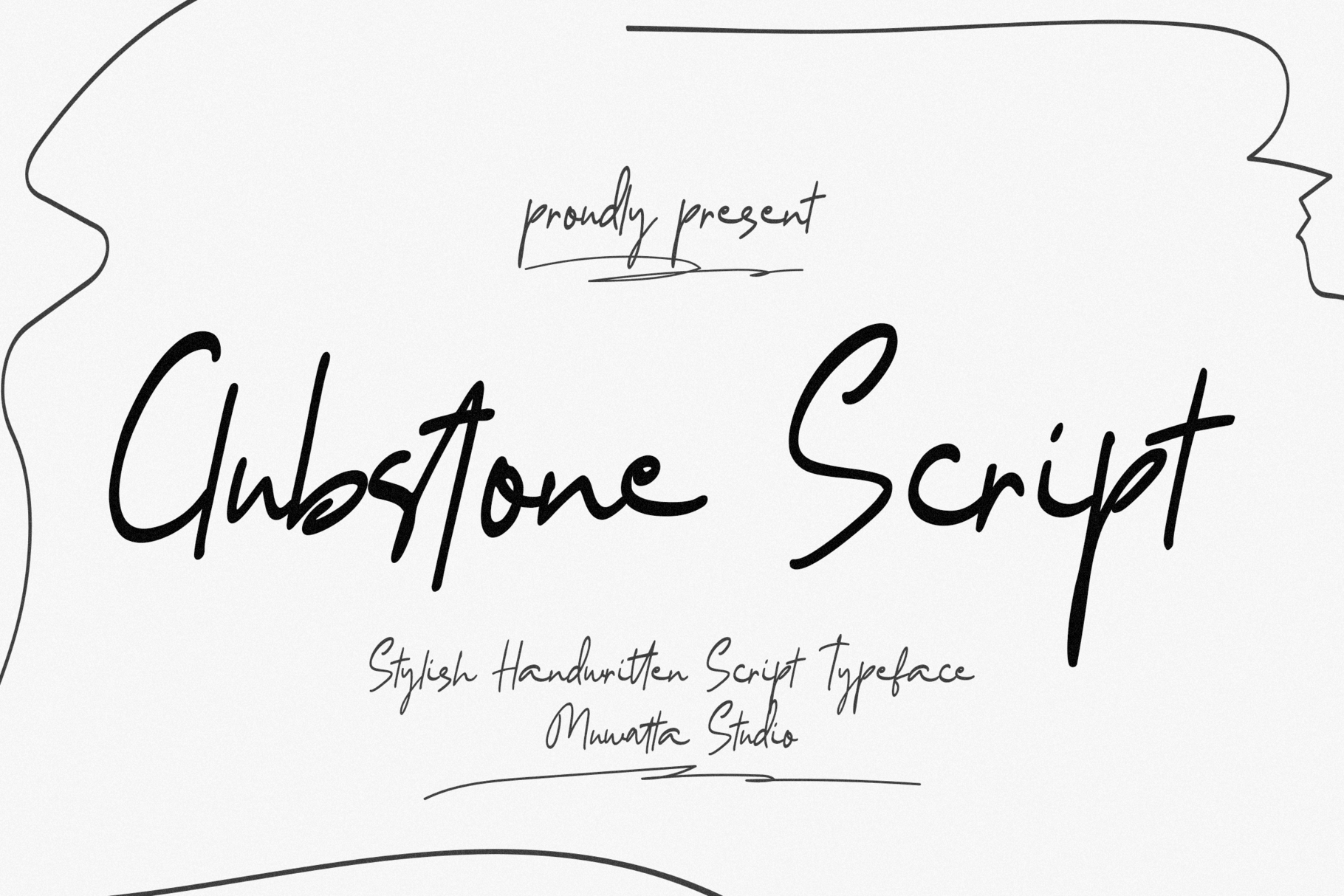
Clubstone Font
Clubstone is where creativity and art meet in font form. We present a collection of lovingly designed fonts, perfect for those who want to add a personal, playful, and elegant touch to their design projects.
-Full alphabet with Uppercase and Lowercase A-Z for script
-Numbers for all fonts
-Punctuation and symbols for all fonts
-Ligature Lowercase script
-Multilingual support all fonts